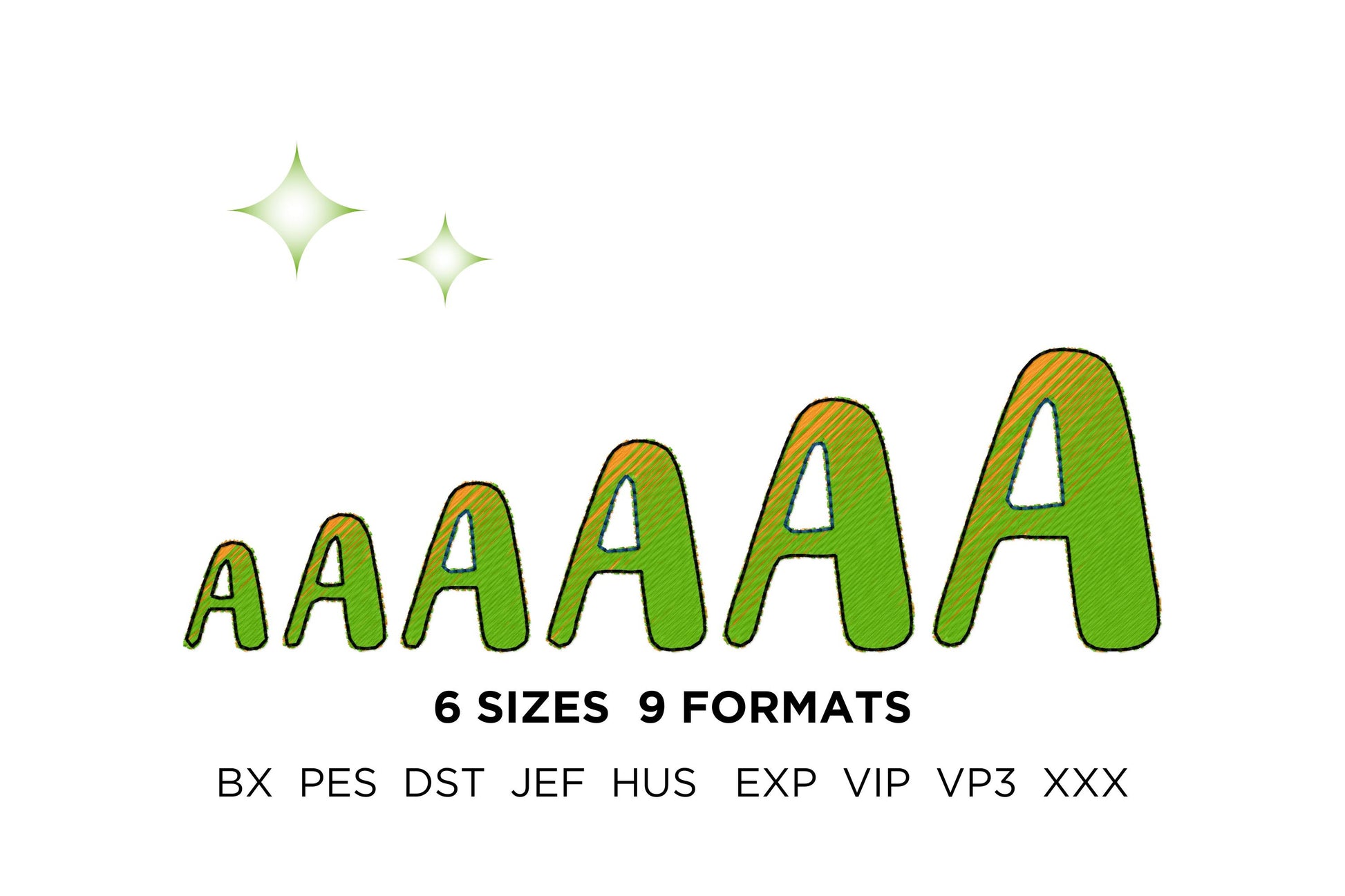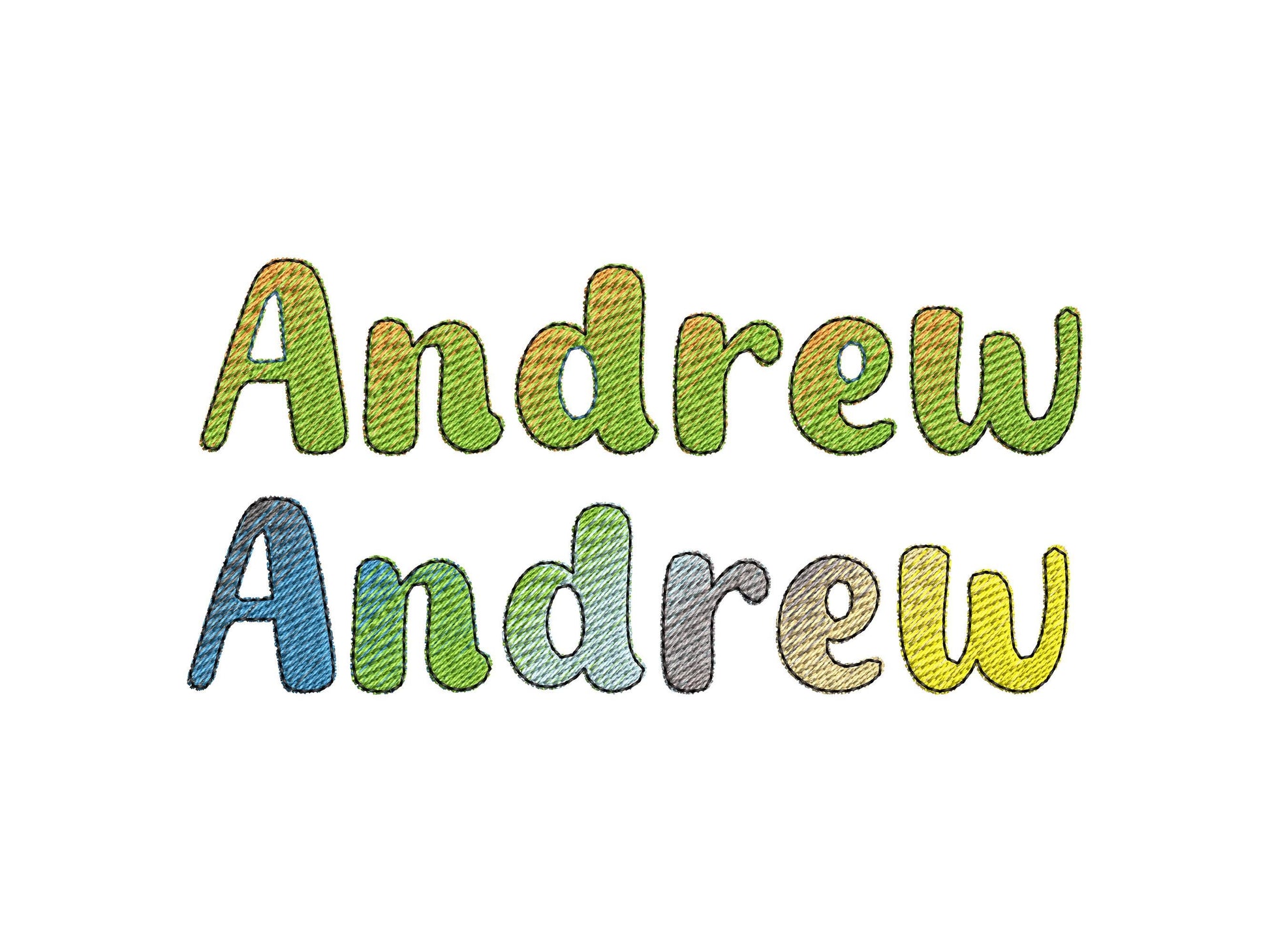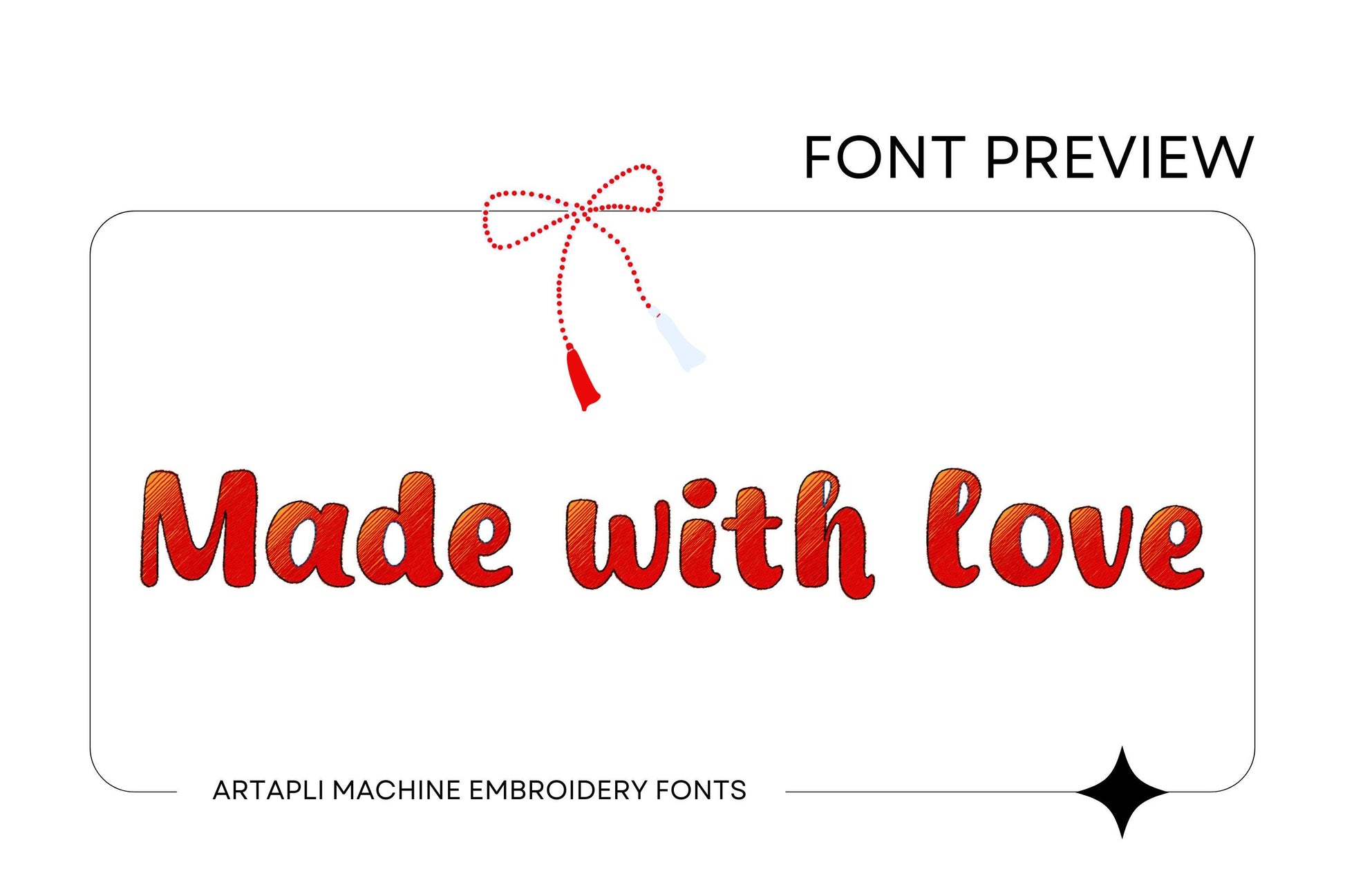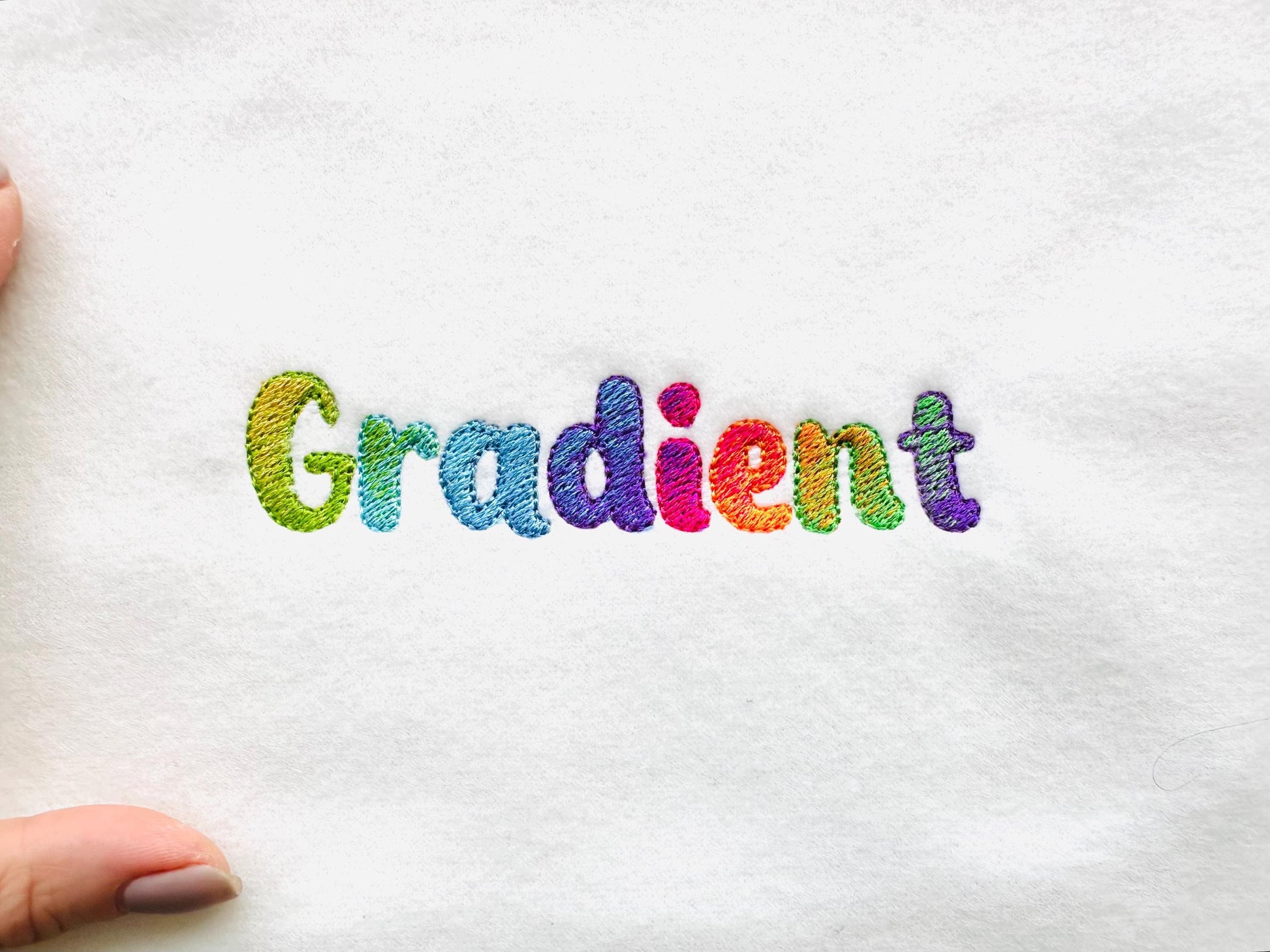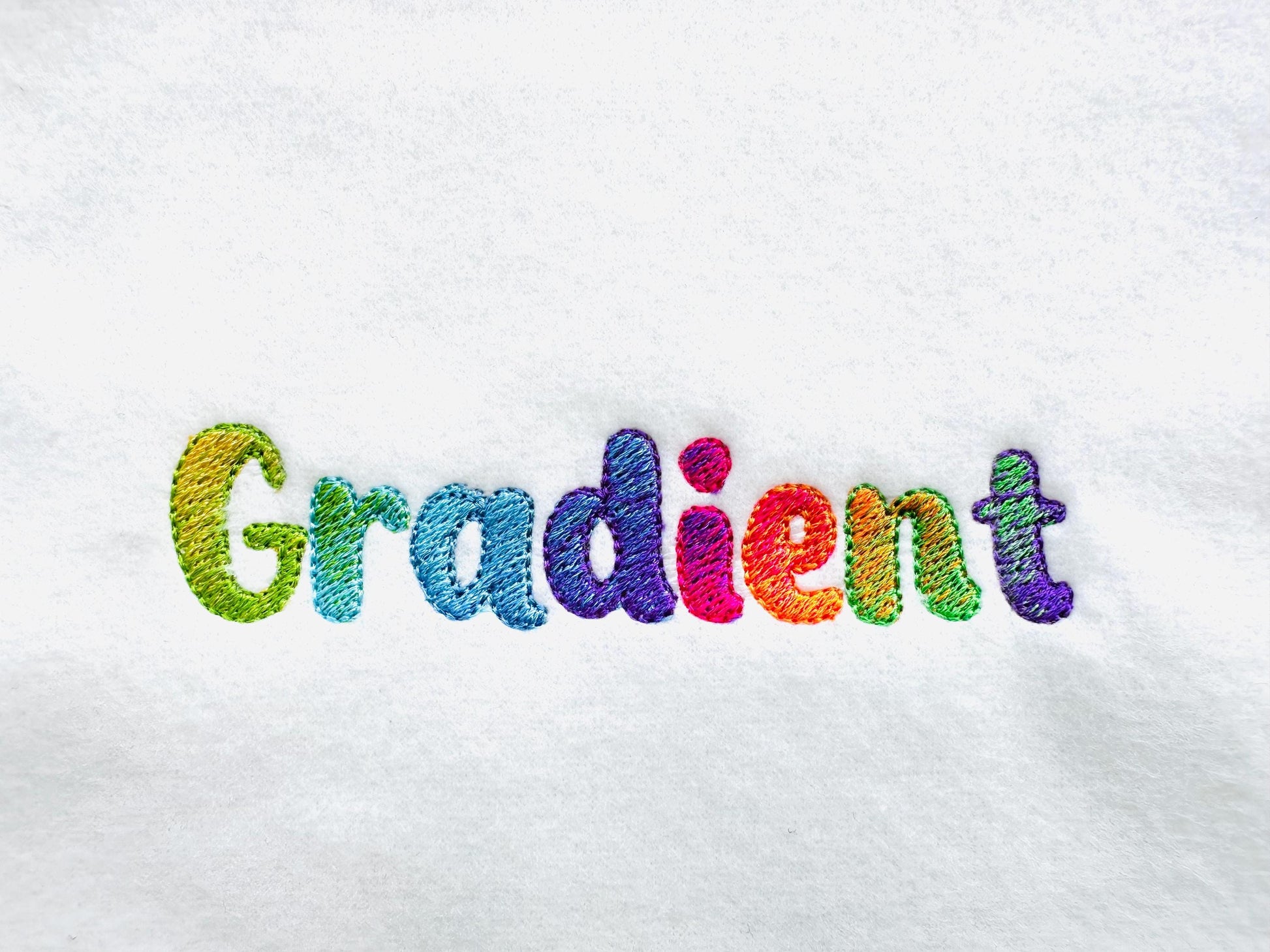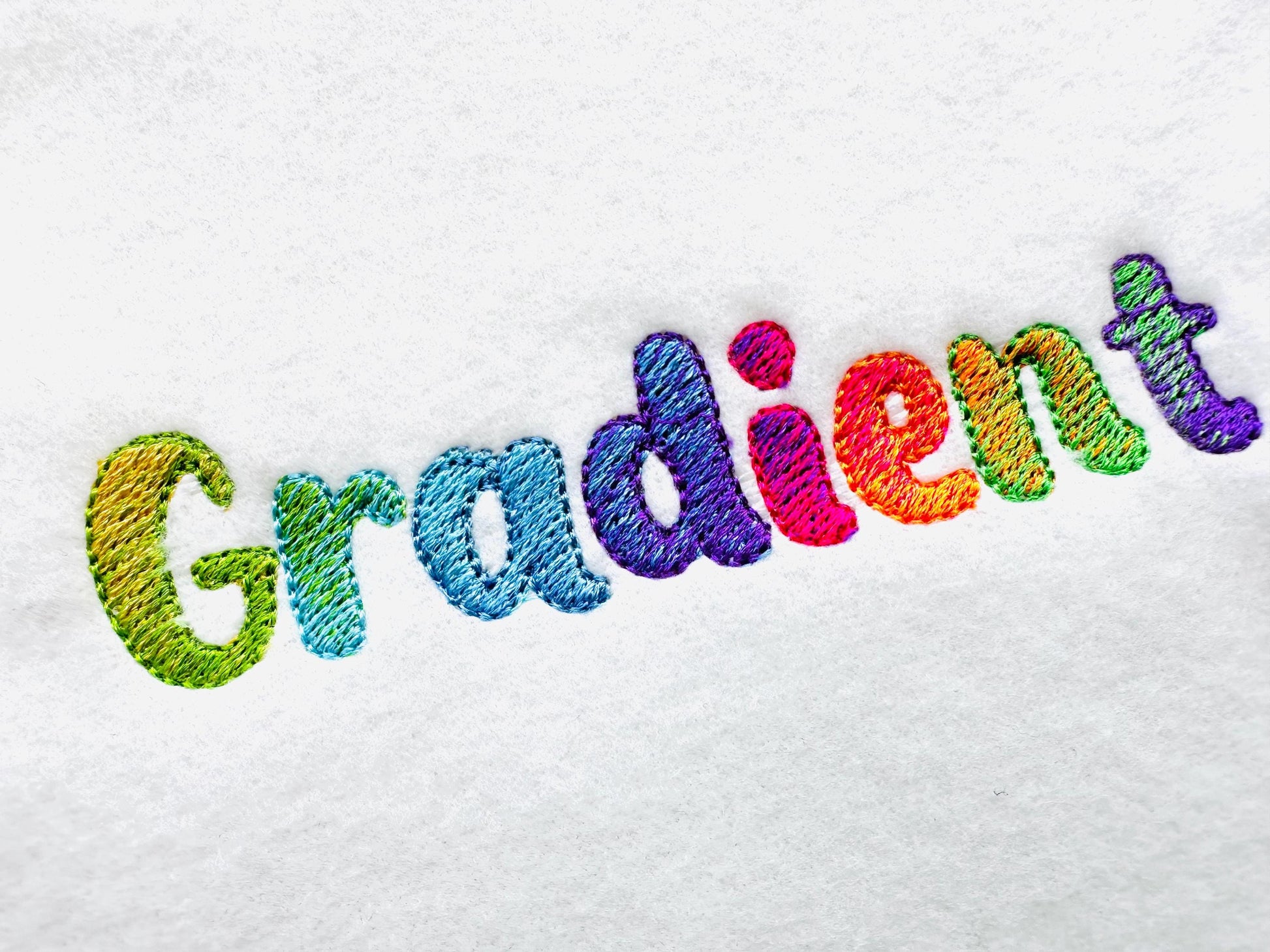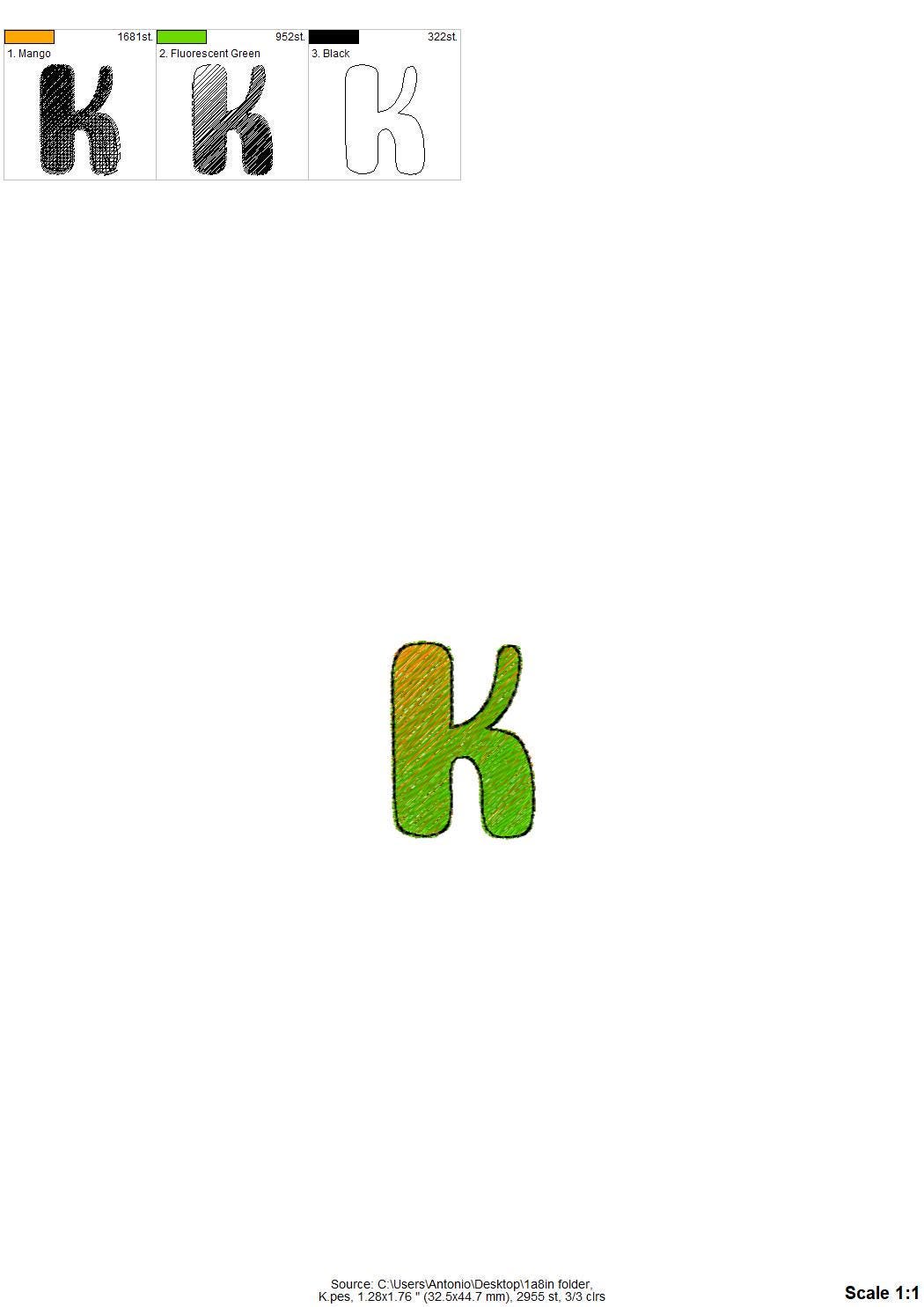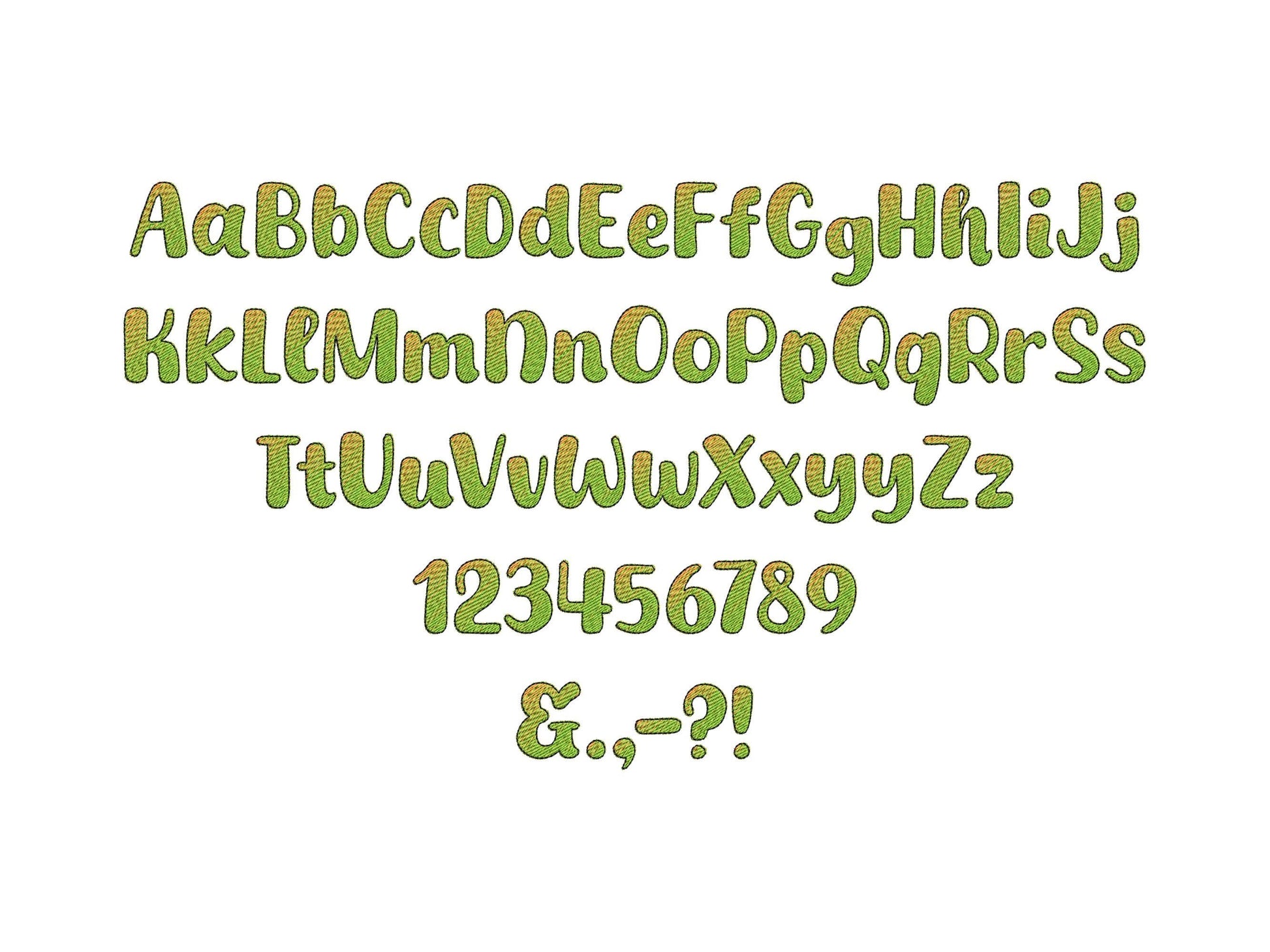
Or click to open the linkA vibrant iridescent mini font stitched with two ordinary thread colors and a clean outline. No special thread needed. Great for small names and words.
One side of each letter is stitched in one color, the other side in a second color, then finished with an outline. Uppercase and lowercase letters, numbers and punctuation in six sizes: 0.8, 1, 1.2, 1.5, 1.8 and 2.2 inches.